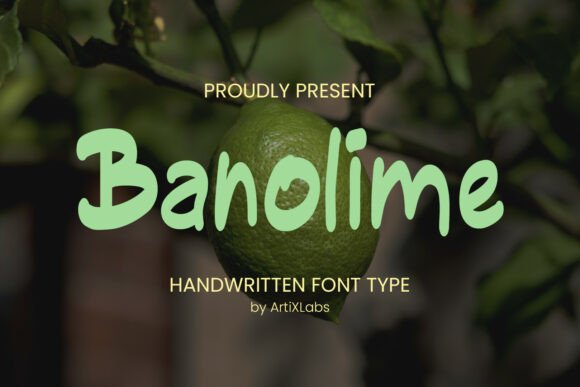
Banolime Font: The Ultimate Choice for a Fresh and Playful Design
In the world of typography, fonts play a crucial role in conveying the tone and personality of a brand. When it comes to creating a design that is both casual and eye-catching, the Banolime font is an excellent choice. This fresh and playful handwritten font is perfect for a wide range of design projects, from logos and packaging to social media graphics and posters.
The Characteristics of Banolime Font
Banolime is a handwritten font that boasts rounded strokes and a friendly personality. Its organic shapes and smooth curves make it a versatile choice for both digital and print designs. The font’s playful and casual vibe is perfect for brands that want to convey a sense of approachability and fun.
Perfect for a Wide Range of Design Projects
Banolime font is suitable for various design projects, including:
- Logos: Create a memorable and distinctive logo that reflects your brand’s personality with Banolime font.
- Packaging: Add a touch of playfulness and friendliness to your product packaging with this charming font.
- Social Media: Use Banolime font to create engaging social media graphics that capture your audience’s attention.
- Posters: Design eye-catching posters that showcase your brand’s message with this versatile font.
- Merchandise: Create fun and playful merchandise, such as t-shirts, stickers, and more, with Banolime font.
The Benefits of Using Banolime Font
There are several benefits to using Banolime font in your design projects:
- Unique and Memorable: Banolime font’s playful and casual vibe makes it a unique and memorable choice for brands.
- Versatile: This font is suitable for both digital and print designs, making it a versatile choice for various projects.
- Easy to Read: Banolime font’s rounded strokes and smooth curves make it easy to read, even at small sizes.
- Customizable: You can customize Banolime font to fit your brand’s style and personality.
How to Use Banolime Font Effectively
To get the most out of Banolime font, here are some tips on how to use it effectively:
- Pair it with Other Fonts: Combine Banolime font with other fonts to create a unique and visually appealing design.
- Experiment with Colors: Try out different colors and color combinations to find the perfect match for your brand.
- Use it Consistently: Use Banolime font consistently across all your design projects to create a cohesive brand identity.
Why Choose Banolime Font?
In a world where typography plays a crucial role in branding and design, Banolime font stands out as a fresh and playful choice. Here are some reasons why you should choose Banolime font:
- Unique Personality: Banolime font has a unique and friendly personality that sets it apart from other fonts.
- High-Quality Design: This font is designed with high-quality and attention to detail, making it perfect for professional designs.
In conclusion, Banolime font is a fresh and playful handwritten font that is perfect for a wide range of design projects. Its organic shapes, smooth curves, and friendly personality make it a versatile choice for both digital and print designs. With its unique and memorable vibe, Banolime font is an excellent choice for brands that want to convey a sense of approachability and fun.
What is Banolime font?
Banolime font is a fresh and playful handwritten font with rounded strokes and a friendly personality.
What is Banolime font used for?
Banolime font is perfect for logos, packaging, social media, posters, and any project that needs a casual yet eye-catching look.